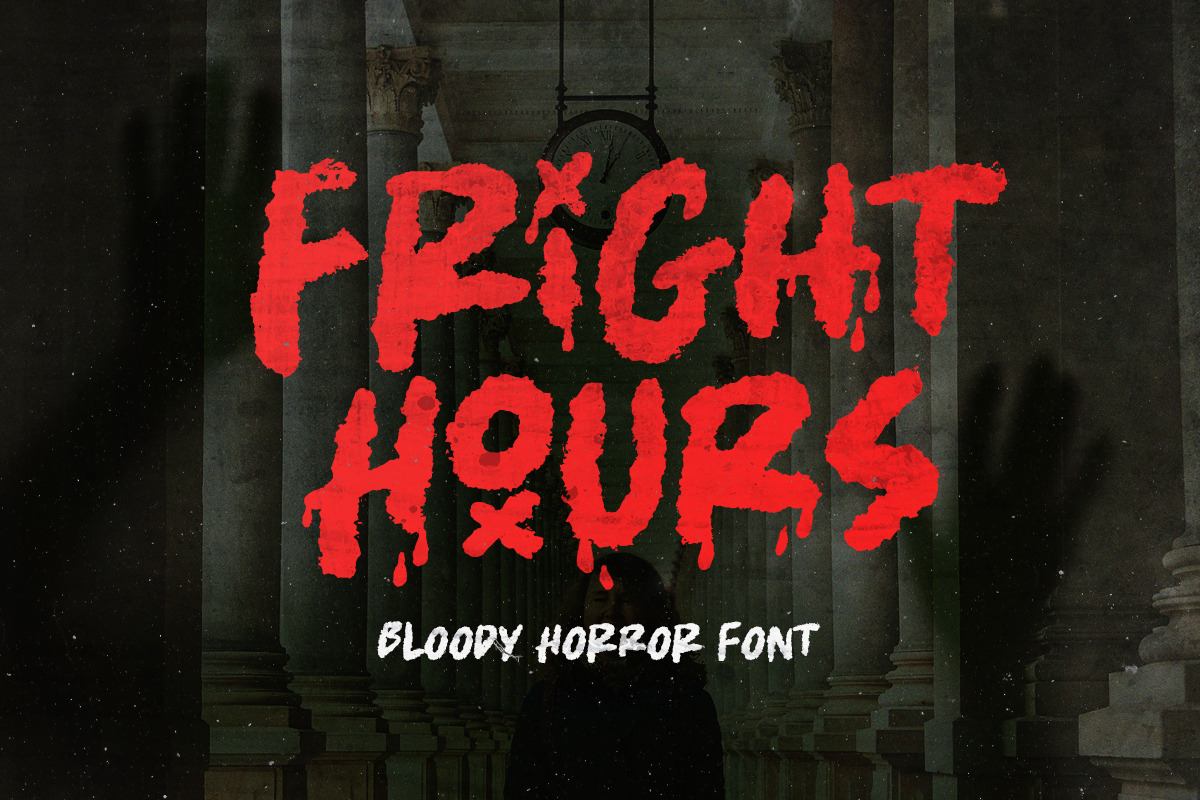
Fright Hours - Bloody Horror Font Free Download
The Fright Hours - Bloody Horror Font Free Download is a chilling and intense font that brings an eerie, horror-filled vibe to your designs. With its jagged, bloody letterforms, this font is perfect for creating spooky logos, horror-themed posters, movie titles, and Halloween materials. The dramatic, blood-splattered style adds a haunting and sinister atmosphere, making it ideal for projects that need to stand out with a terrifying edge. Please note, for commercial use, a license purchase is required. However, you can easily download the Fright Hours - Bloody Horror Font Free Download for free for personal use and experiment with its haunting appearance. Whether you're designing for horror films, events, or spooky-themed projects, this font will elevate your work with a bold, frightful look. Download the Fright Hours - Bloody Horror Font Free Download today and add a terrifying touch to your typography.